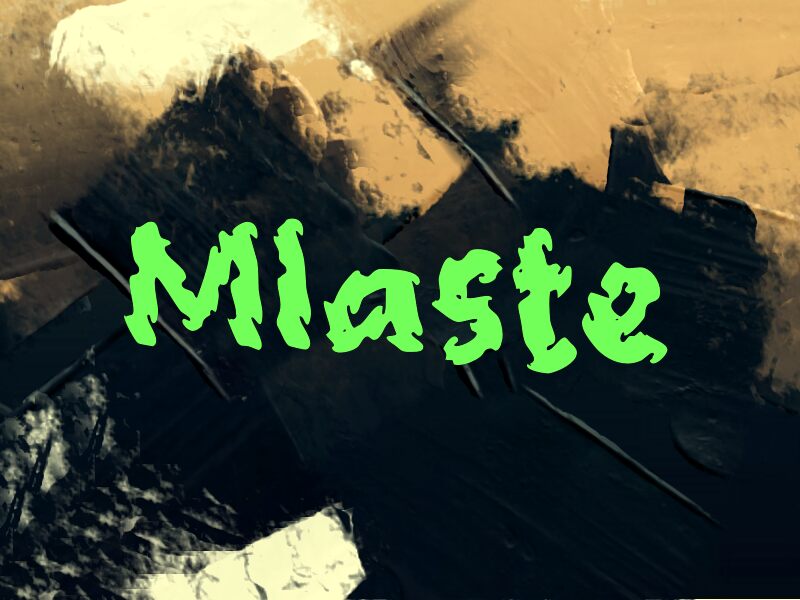
Mlaste, a free distorted gothic display font from Wep, bends medieval letterforms into a loose, almost liquefied silhouette. The letters feel hand-pulled and unruly, with swollen strokes, ragged edges, and curling tops that give the whole font a murky, haunted motion.
That makes it a natural fit for horror posters, underground music artwork, game title cards, zine covers, and event flyers where the mood needs to feel unstable from the first word. As a free font, Mlaste works best in short headlines, logos, and cover lines, because its slumped, dripping rhythm carries the idea before you even start reading.